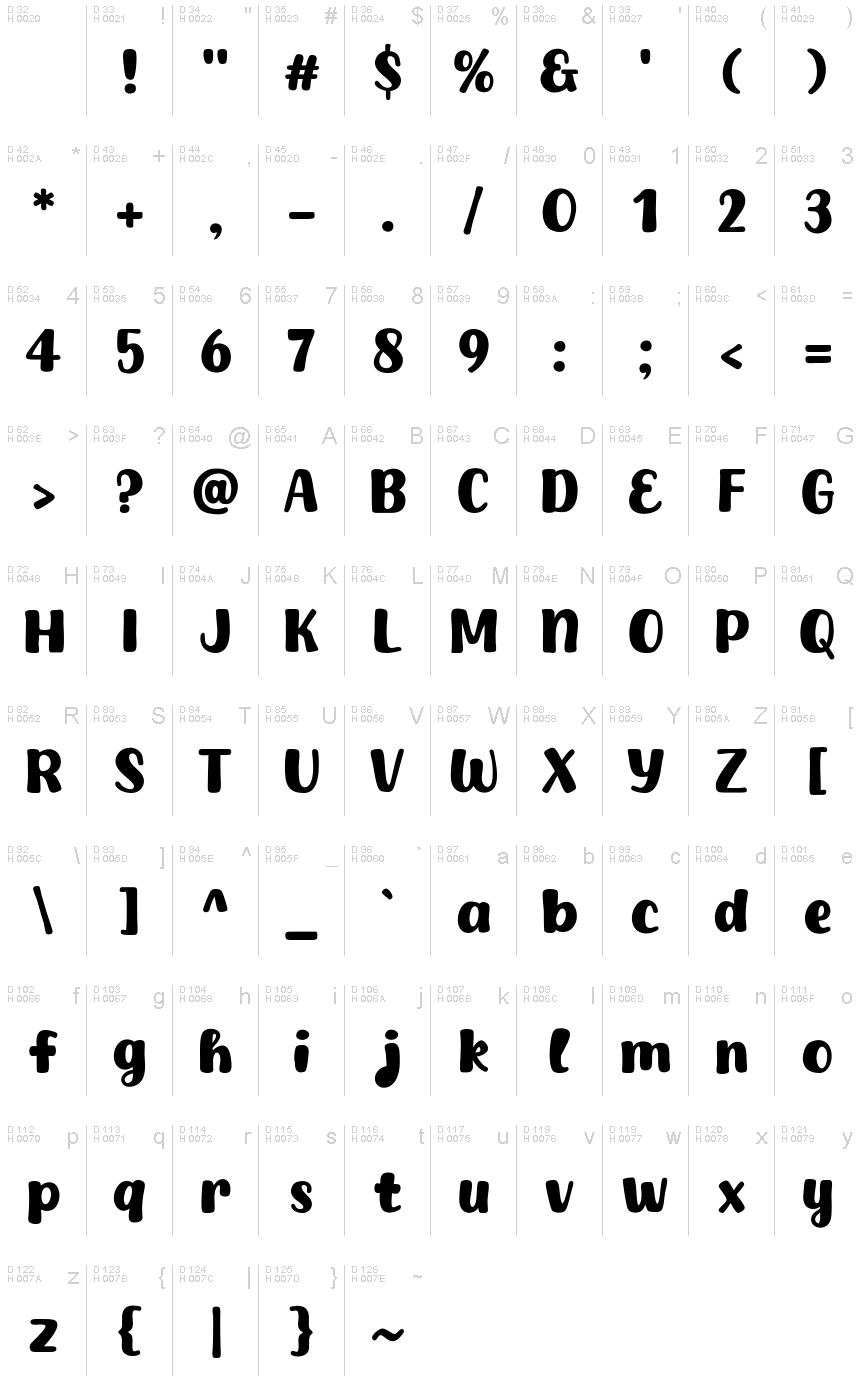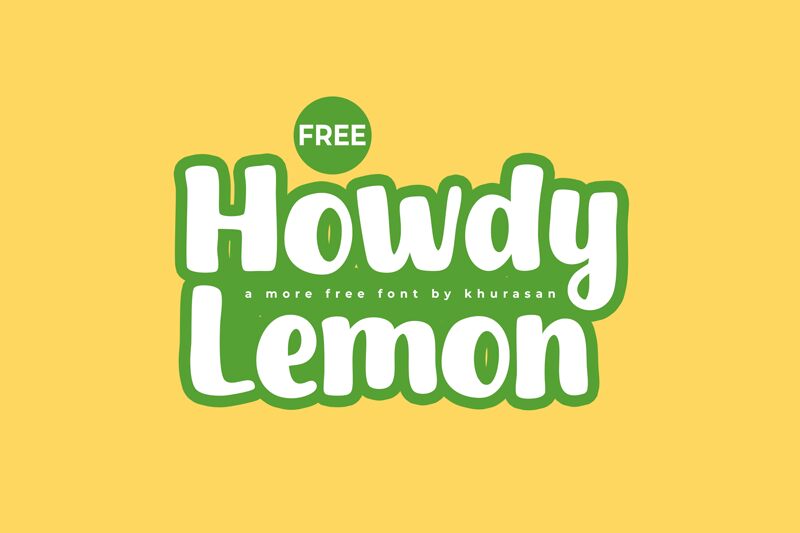
Howdy Lemon
Howdy Lemon font is a cartoon display typeface designed by Khurasan. The bold font with its exaggerated loops and curves is a friendly and approachable fellow that strives primarily to deliver fun. If this font could eat something, it would go for the sweetest bright yellow fruit; if it could speak, we would definitely hear some “Y’all,” “go bananas,” and “too sweet” in between words. But although Howdy Lemon is quite devoted to its name, it would definitely be a mistake to limit your designs with one concept.
This free display font has plenty of possible uses starting with book covers for children’s stories or introduction pages to animation series. Have your readers enjoy the playful invitation texts using both logotypes and printed designs for beach shops or organic products. Cross-designs are on the table as well so have some fun with printouts like stickers or online ones like Instagram posts as both will still whip out that childish side of people we rarely get see nowadays.